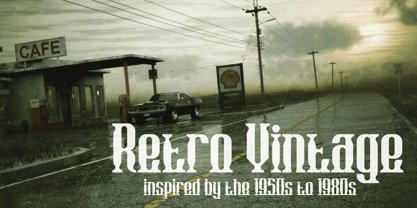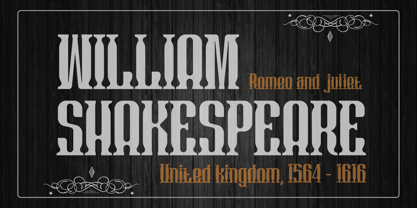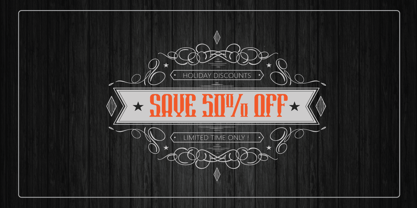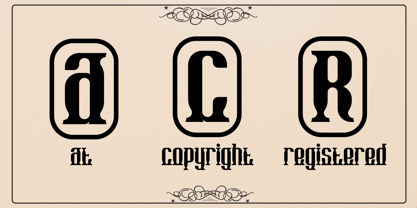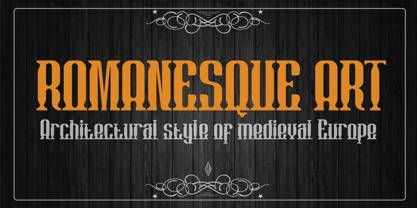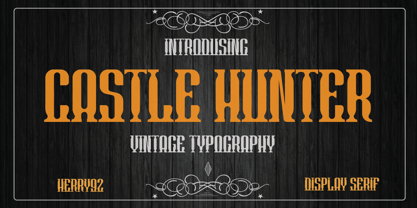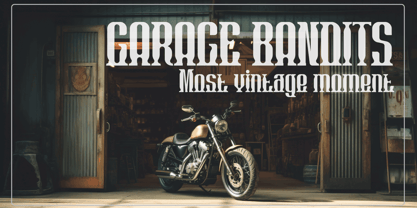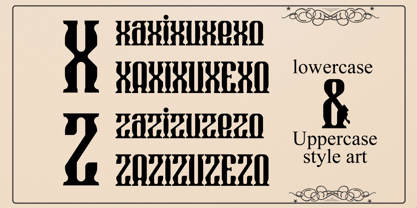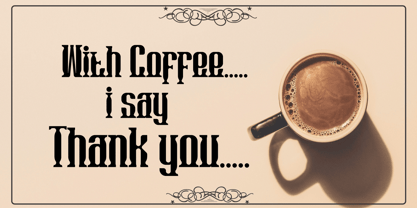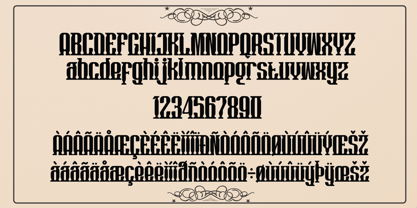
Castle Hunter
by Herry92
The Castle Hunter Font Family was designed by Herry Herry and published by Herry92. Castle Hunter contains 1 styles. More about this family
This font is a retro-style display serif with a strong sense of classic glamour and elegance. Its ornamental and high-contrast structure makes it ideal for designs that aim to evoke luxury, nostalgia, and cinematic sophistication. This type of font is typically used for, Branding and logos in fashion, art, or classic entertainment industries, Retro or period-style movie and theater posters, Editorial design such as magazine covers, invitations, or luxury packaging and Visual identities for vintage-themed cafés, bars, or boutique hotels.
Designers: Herry Herry
Foundry: Herry92